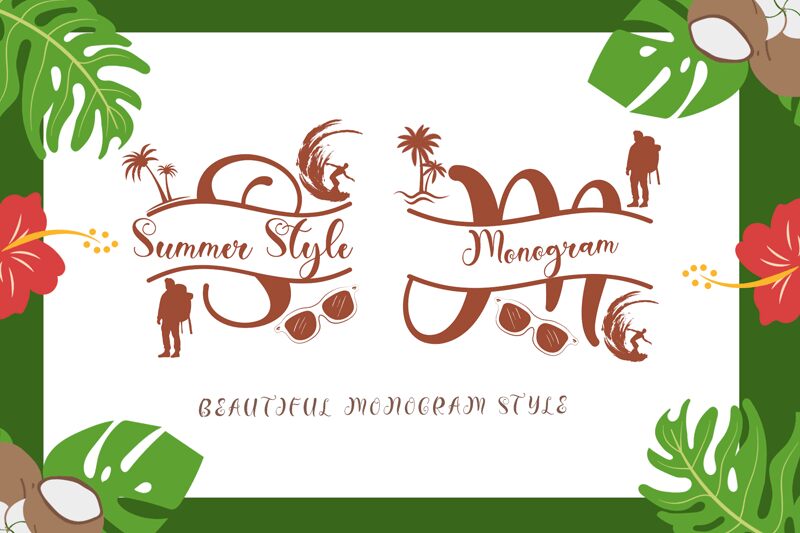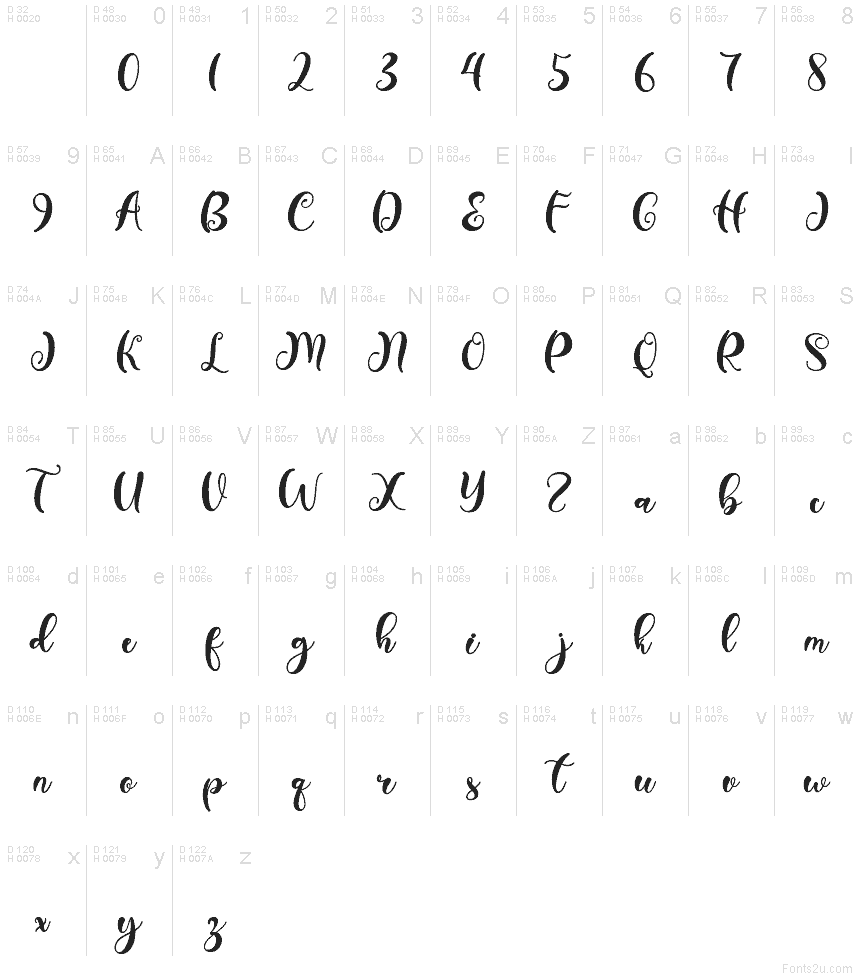
Summer Style Demo
Summer Style font by Yoga Letter is a free calligraphy font that feels like it was brushed onto the page in one confident sweep. Its smooth, looping strokes and generous curves give every word a breezy, hand-lettered warmth, like ink gliding over thick card stock. The letters are elegant but not stiff, with lively swashes that add just enough flair without drowning your message in ornament.
Using Summer Style, you can bring a soft, romantic energy to wedding invitations, save-the-dates, logos for boutiques, product packaging, social media quotes, and event signage. This free font shines at larger sizes where its curls and rhythm can really breathe. Pair it with a clean sans serif for body text to keep layouts balanced and easy to read.